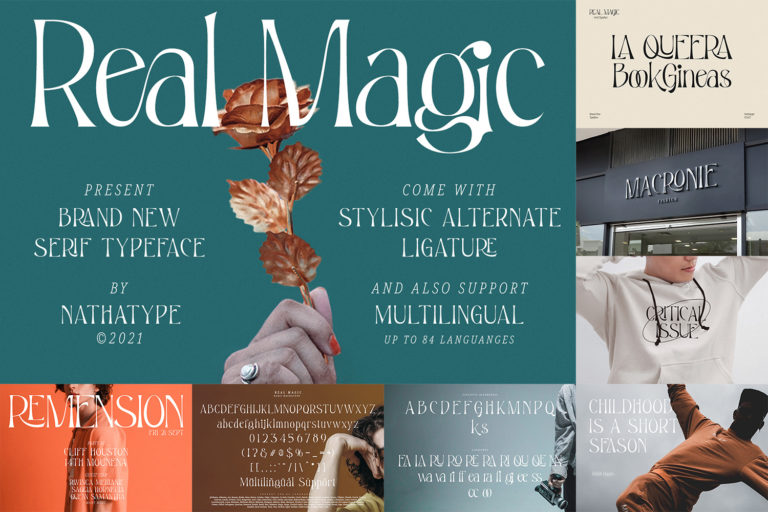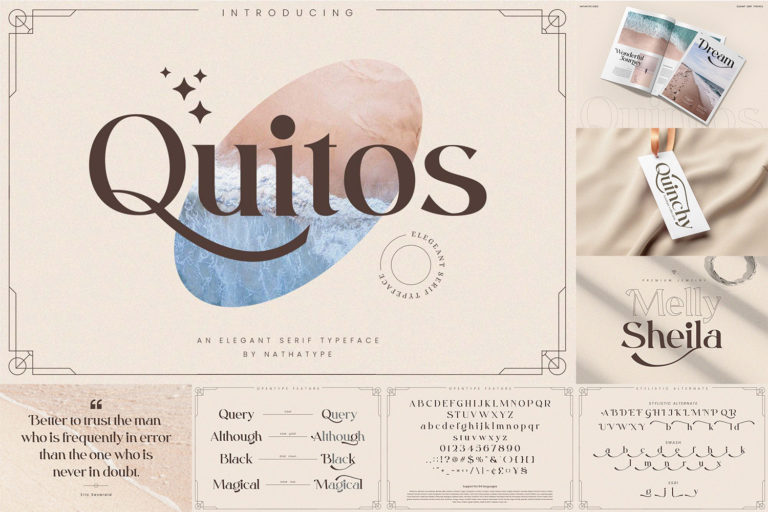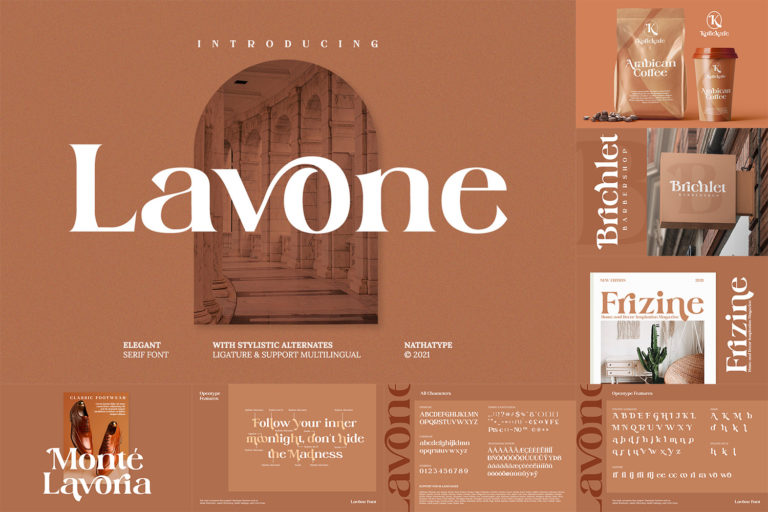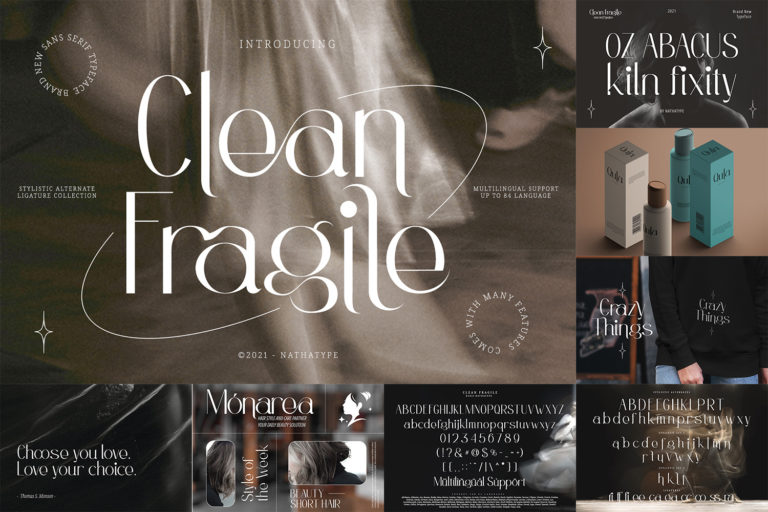
Modern Display Font Bundle
Hello, Everyone! Elevate your design projects to new heights with the Modern Display Font Bundle from Din Studio.
This carefully curated collection brings together a stunning array of contemporary typefaces that are perfect for adding a touch of sophistication, creativity, and versatility to your creative design. These fonts are carefully chosen to offer a wide range of styles, ensuring they’re suitable for various projects, from websites, logos, headings, to print materials.
The bundle includes Multilingual Support to help you reach a global audience. See the previews above to get some inspiration on how you can use them.
Fonts include are :